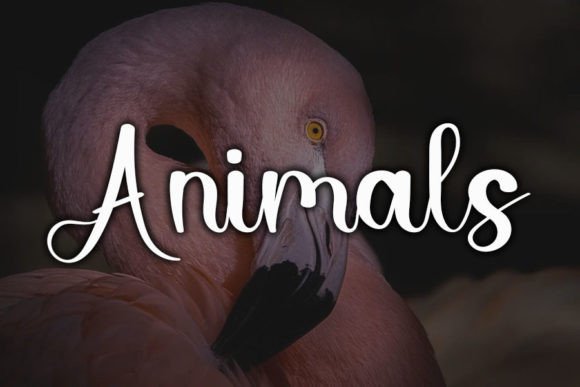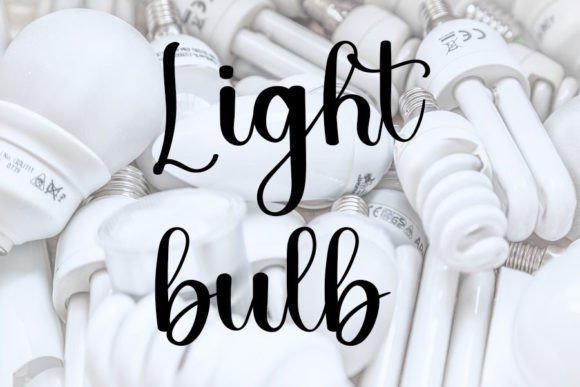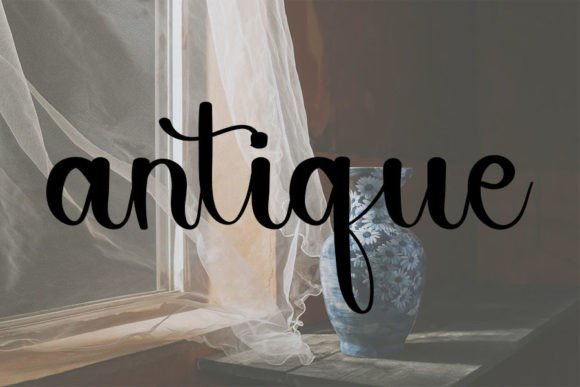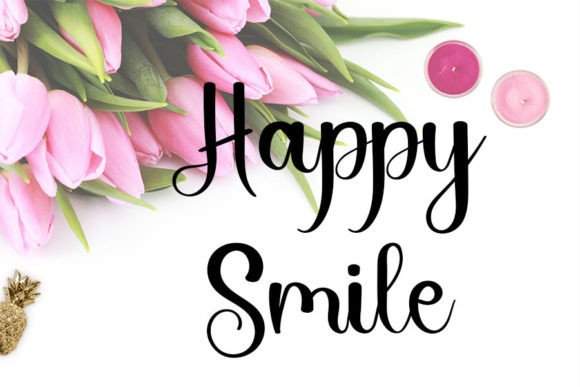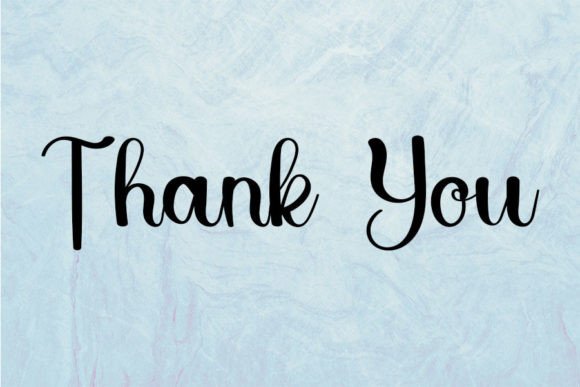
About Barbie Font
Barbie is a friendly handwritten font carefully created with a touch of elegance. Clean and a little bit quirky, this font is the perfect fit for all of your logos, branding, social media posts, and crafty DIY projects.